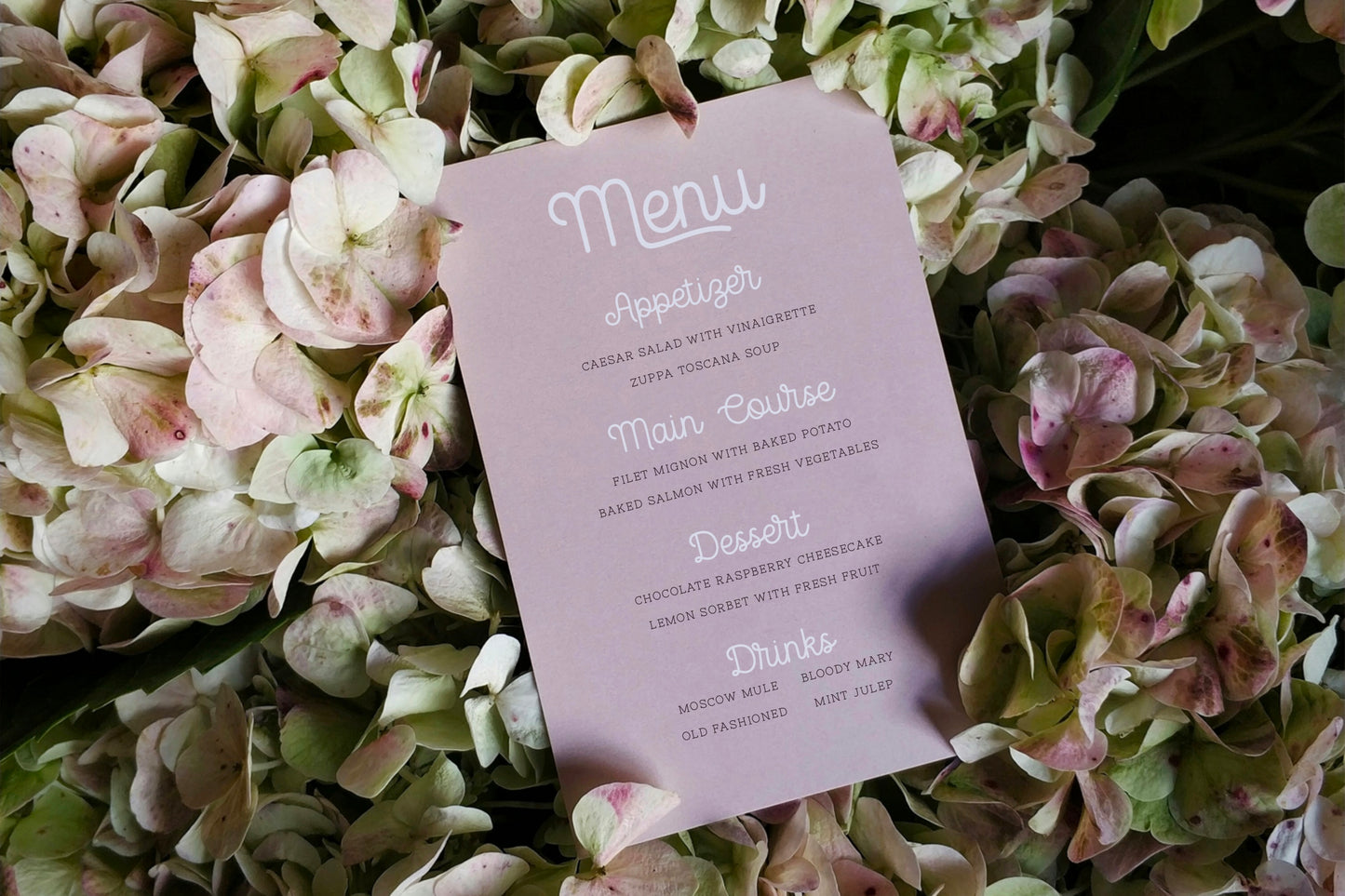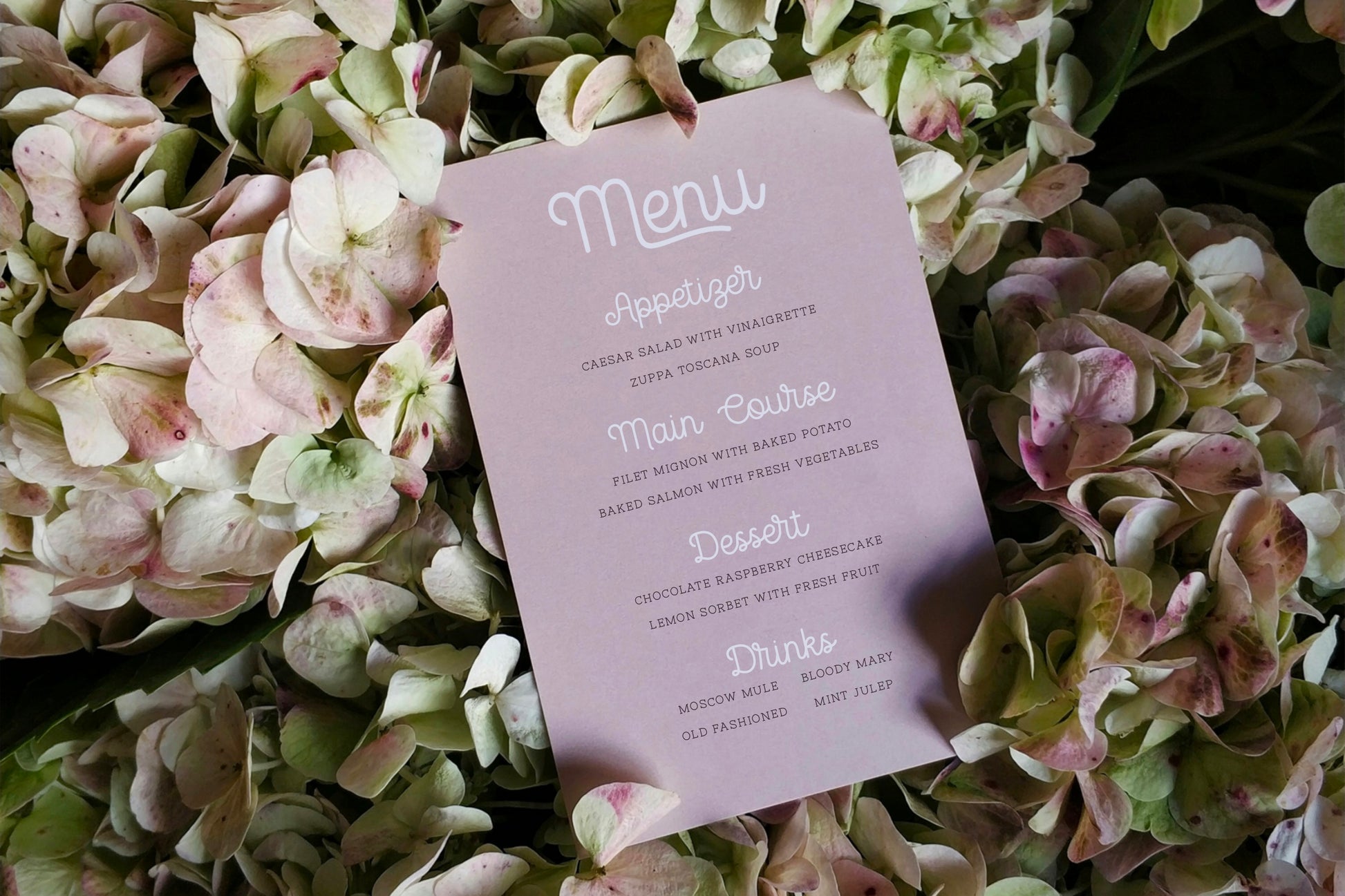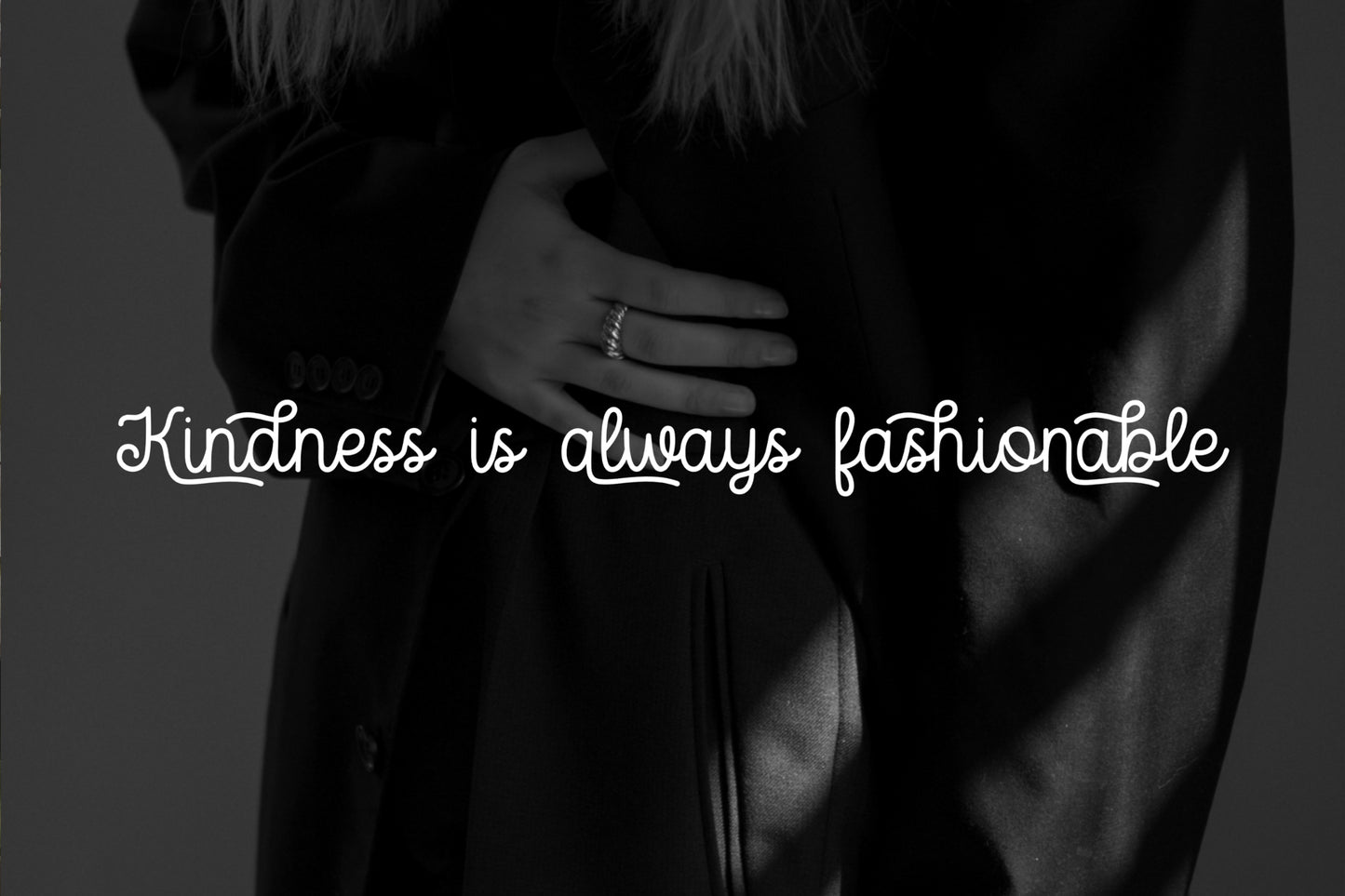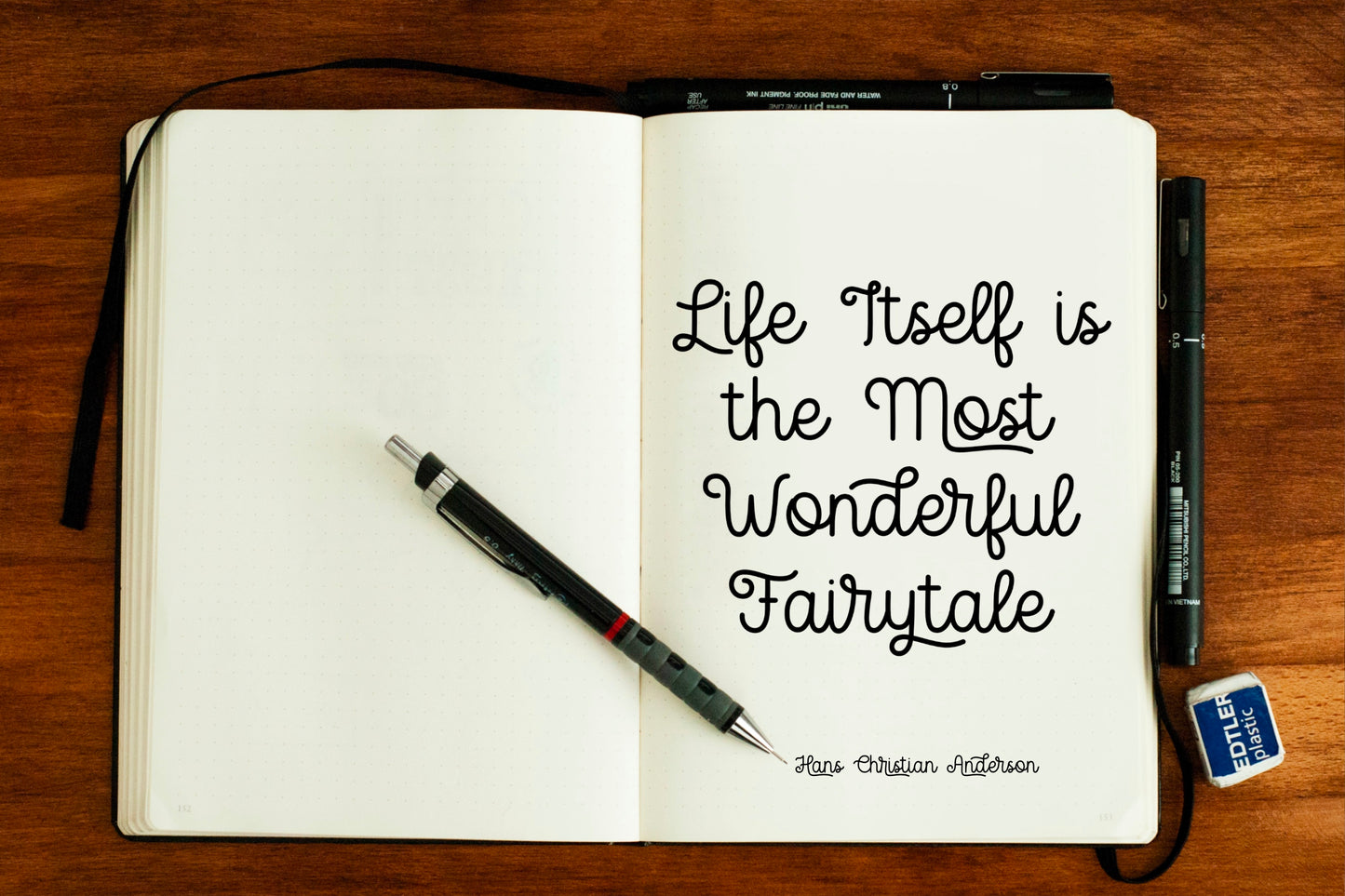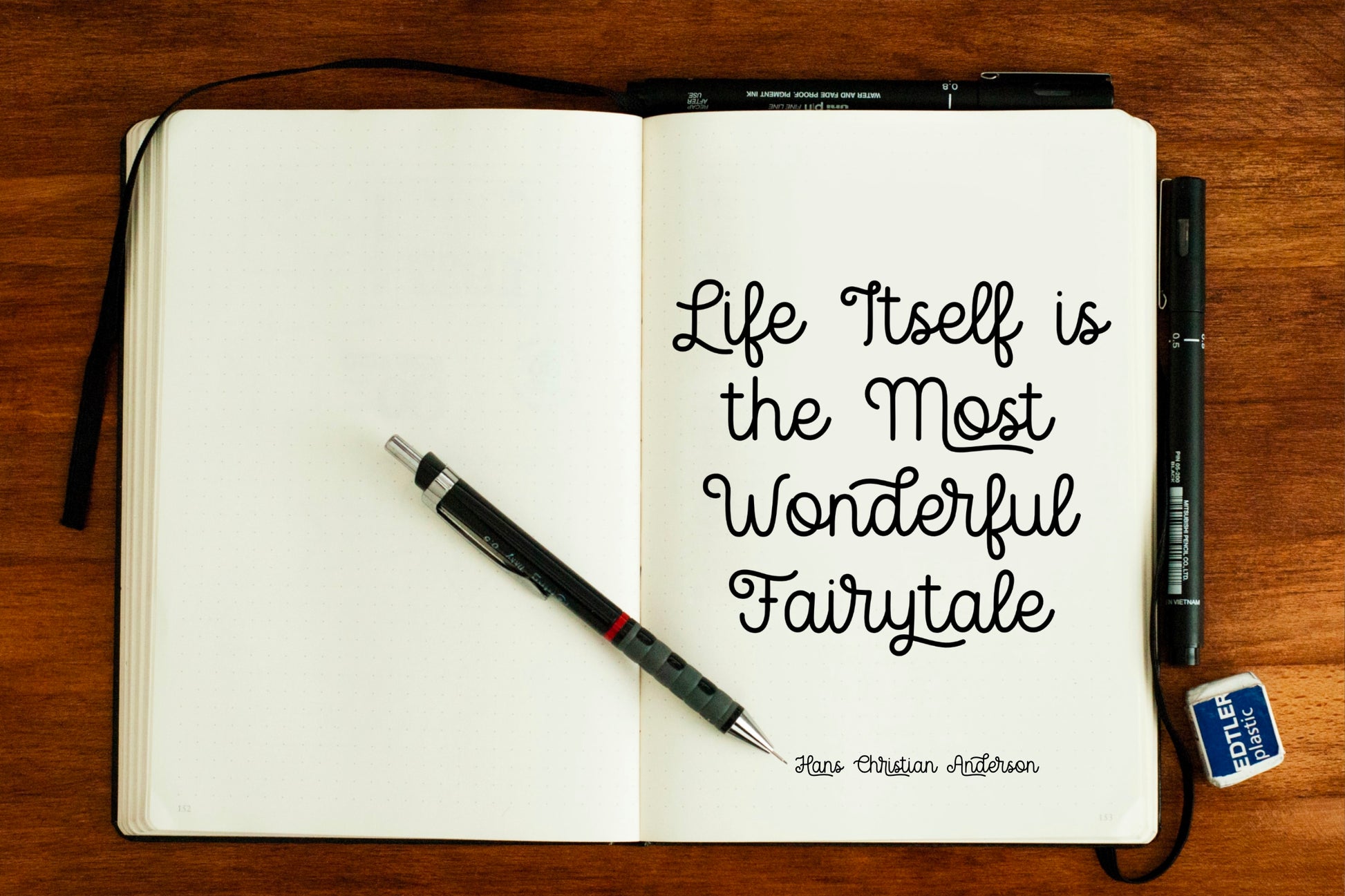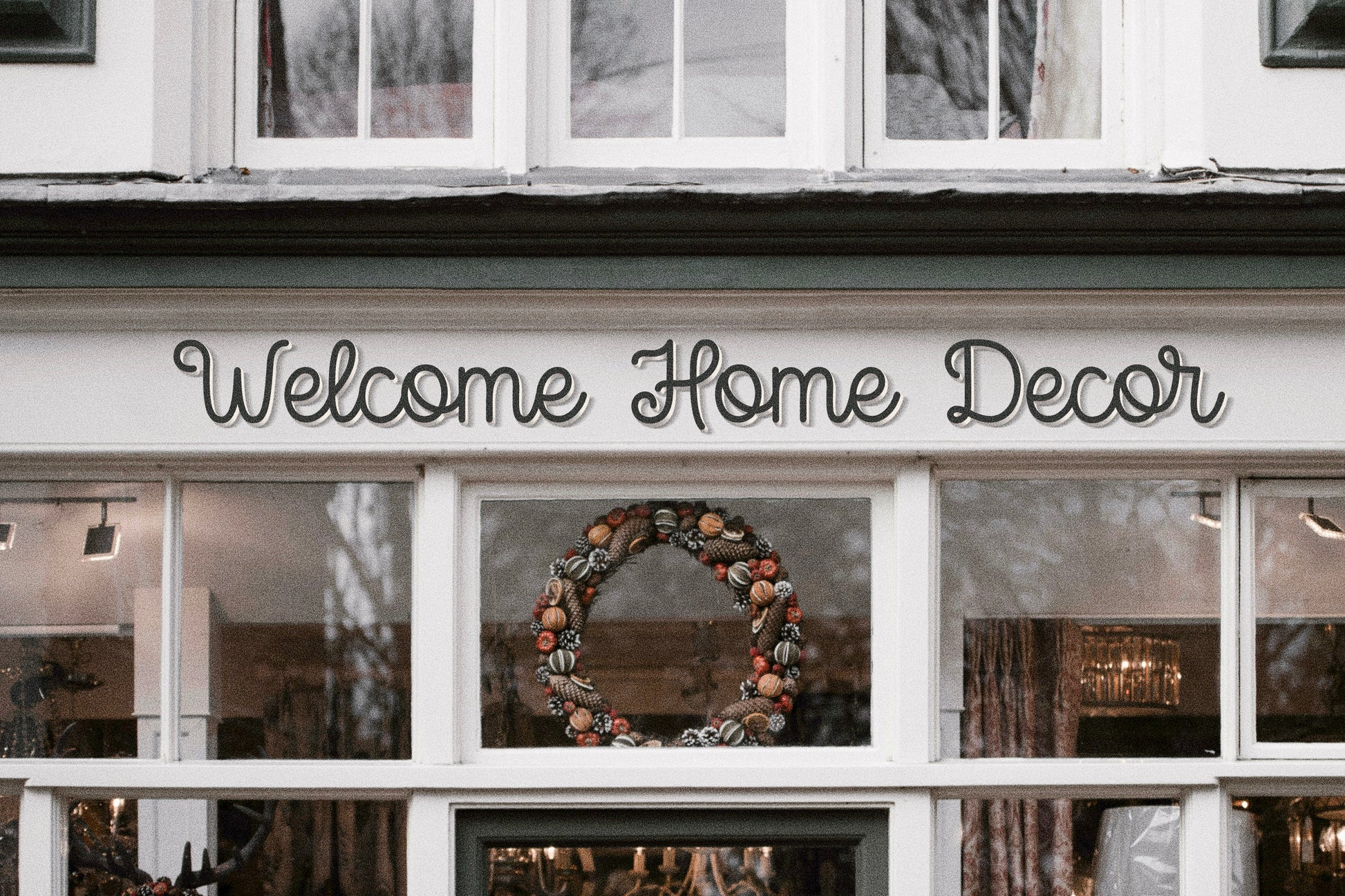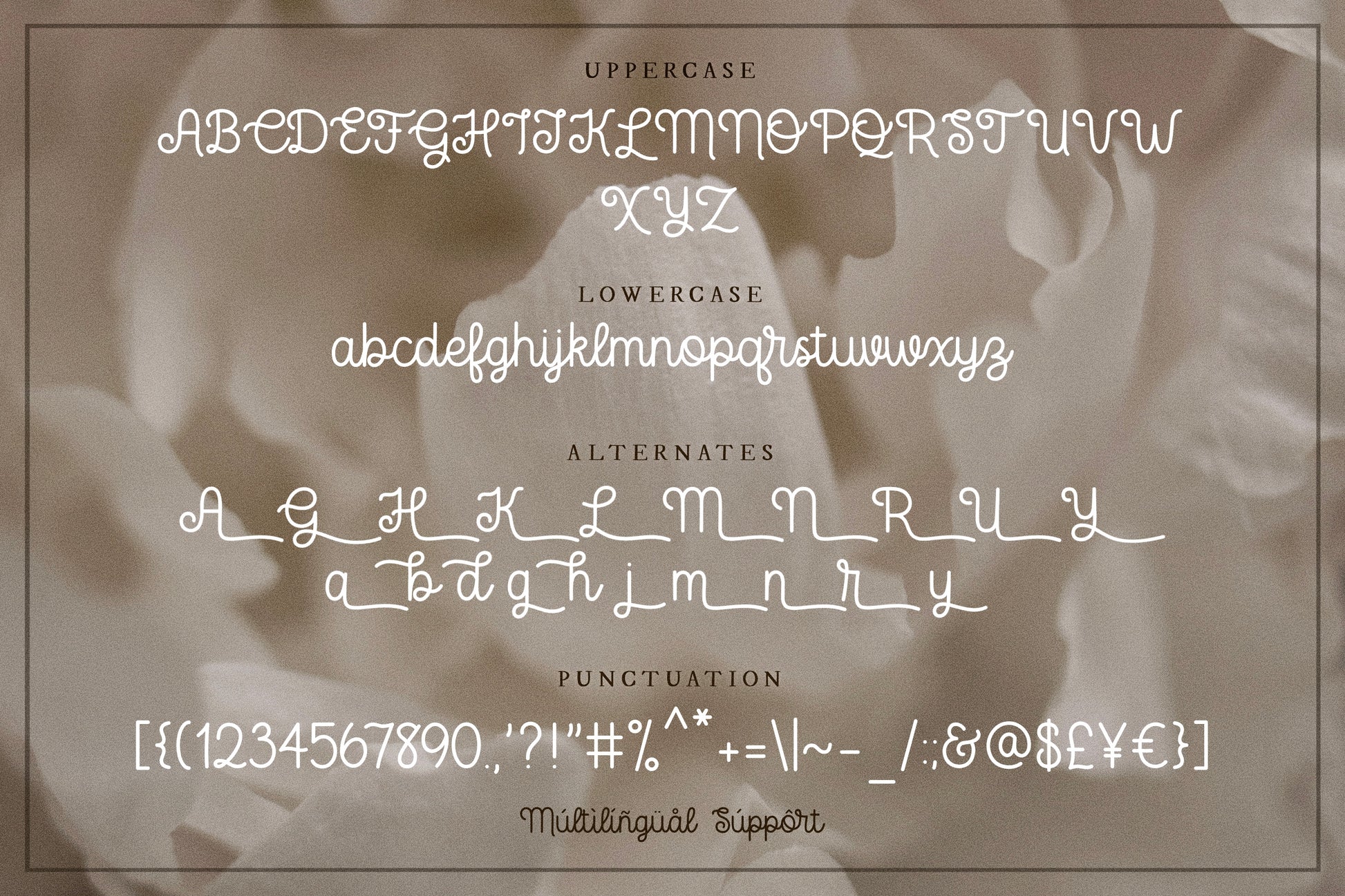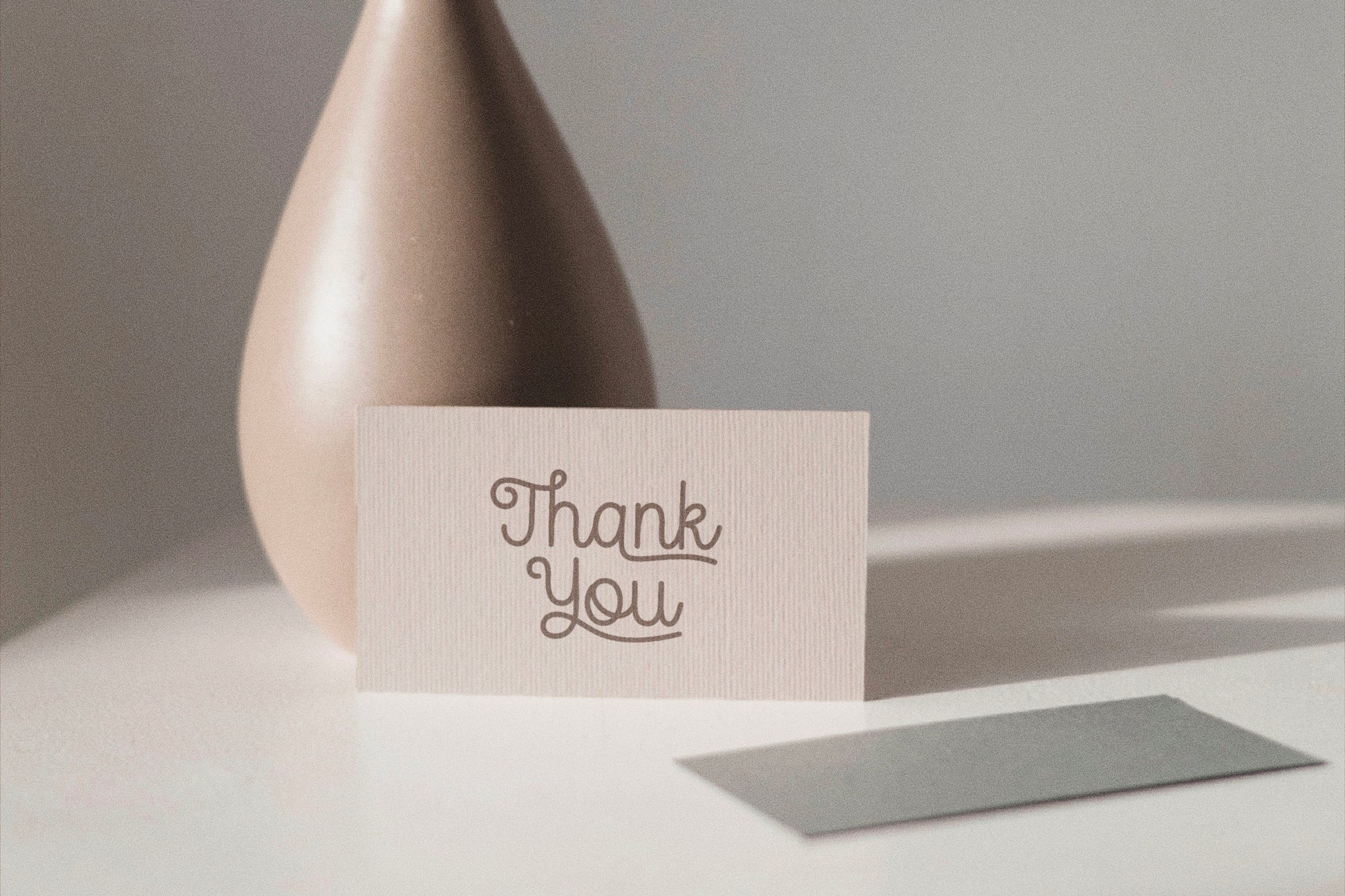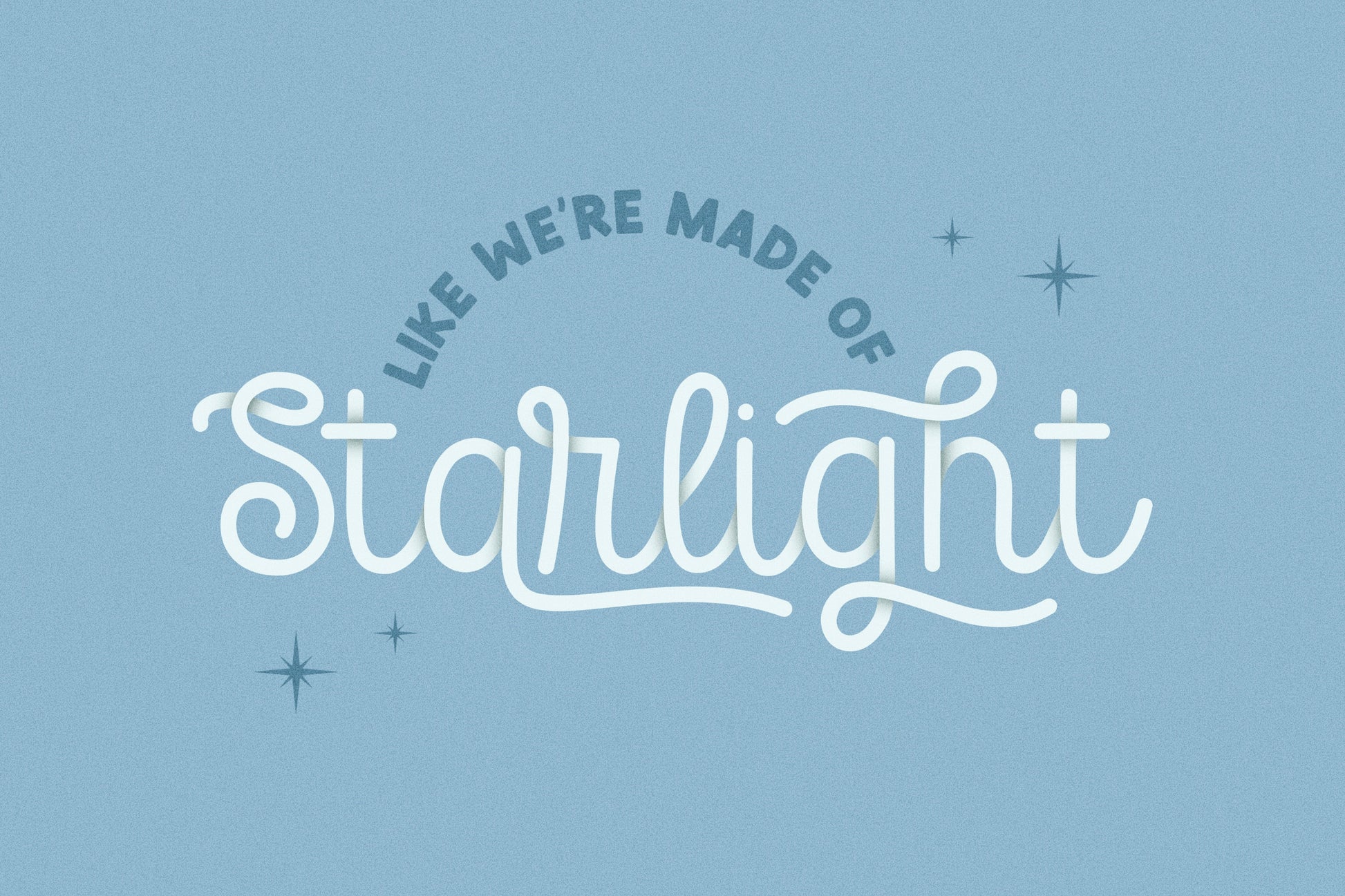
Arabesque Handwritten Script Font
Introducing my most extensive font to date: Arabesque! This beautiful monoline script will add an elegant & graceful touch to any design! Complete with standard ligatures, sweet swashes, and multilingual support, this font is perfect for any and all logos, branding, invitations, stickers, t-shirts, posters, and much more!